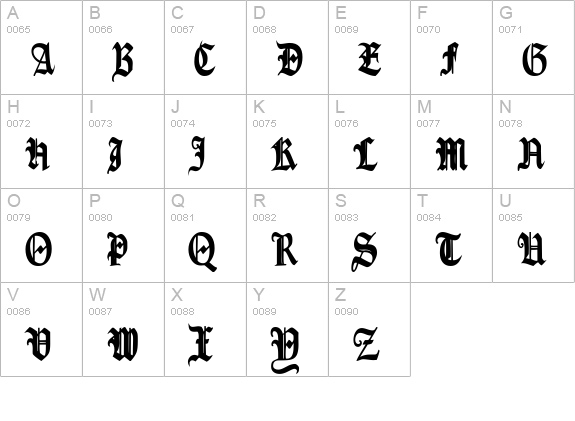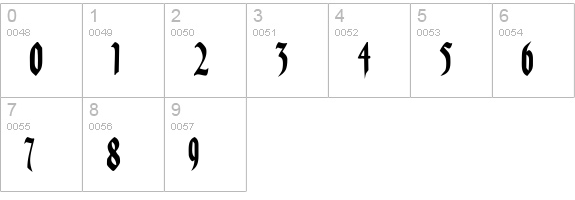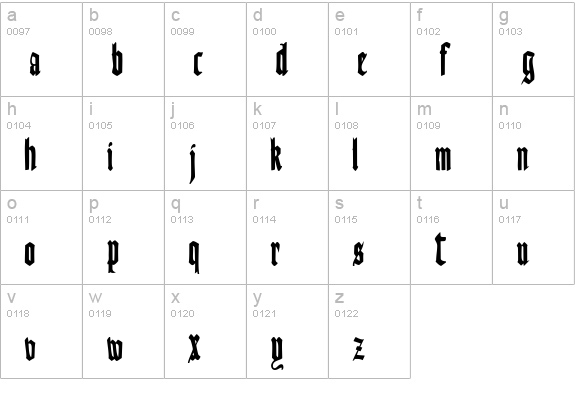
Fains Bold Font Details
Fains Bold is a strong, high-contrast variant in the Fains typeface family \xE2\x80\x94 well suited to headlines, attention-grabbing titles, and strong calls-to-action.
Fains Bold font is a striking and modern typeface that exudes confidence and strength. With its bold and sleek design, this font is perfect for making a bold statement in your designs. The sharp lines and distinct characters of Fains Bold make it stand out on any project, whether it be for a logo, headline, or poster. What makes Fains Bold even better is that it is available for free download at FontsMarket.com. This means you can easily access this impressive font and use it in your projects without any cost. Whether you are a designer looking to add a touch of boldness to your work or simply someone in need of a strong and impactful font, Fains Bold is the perfect choice. Download it today and elevate your designs with this eye-catching typeface.